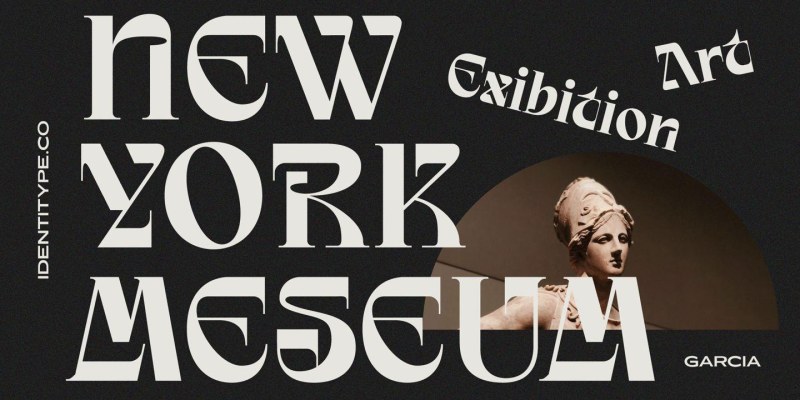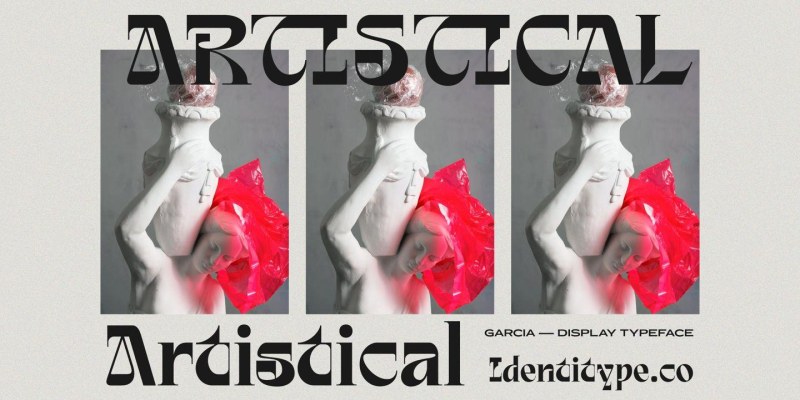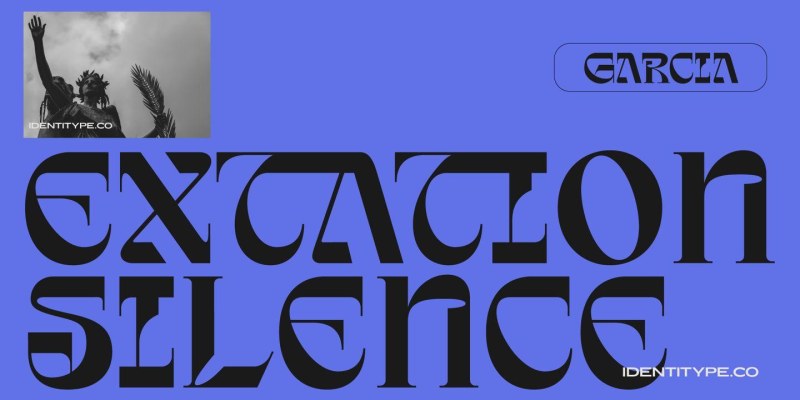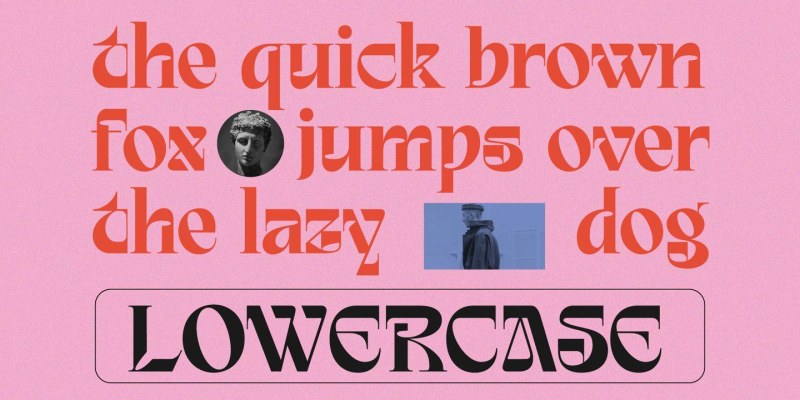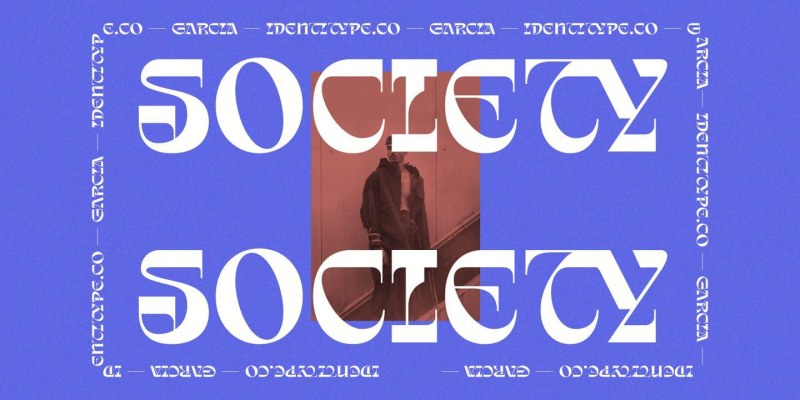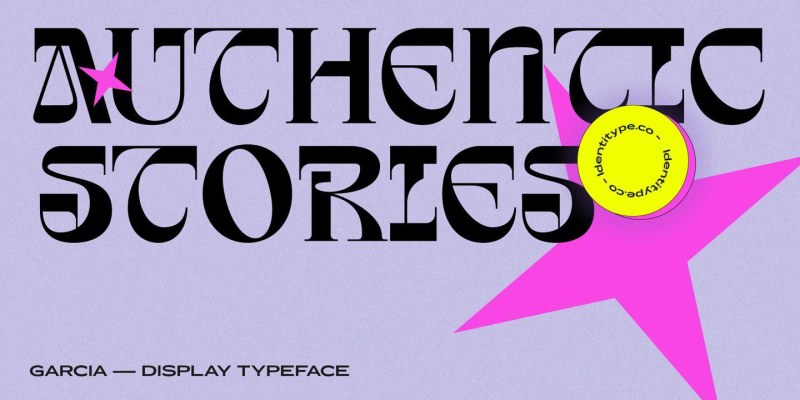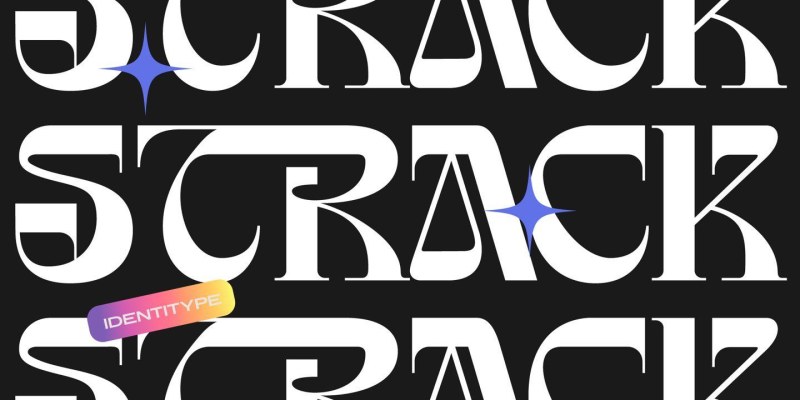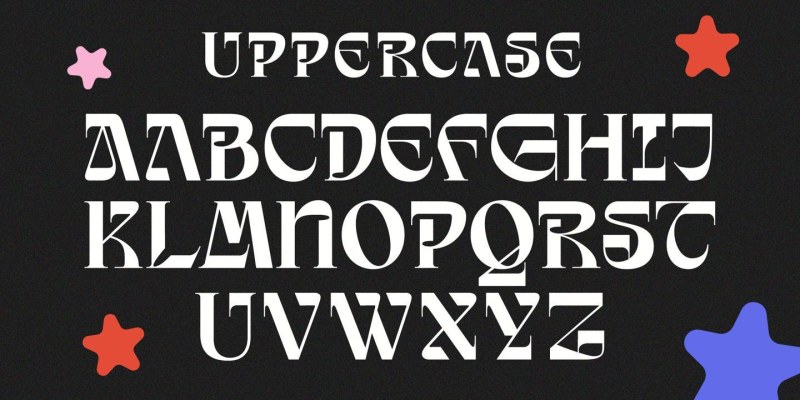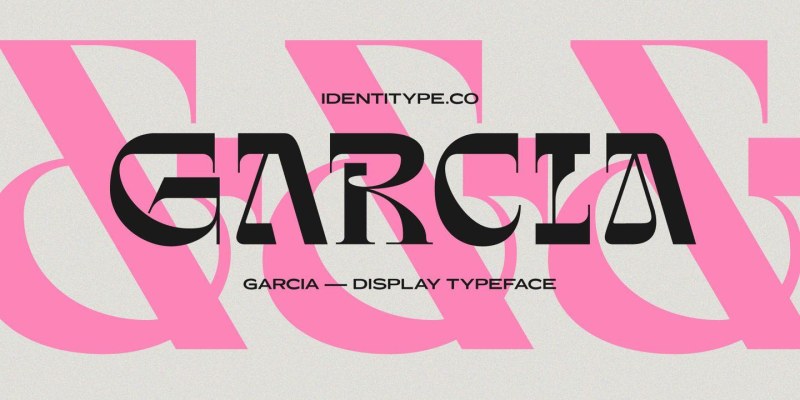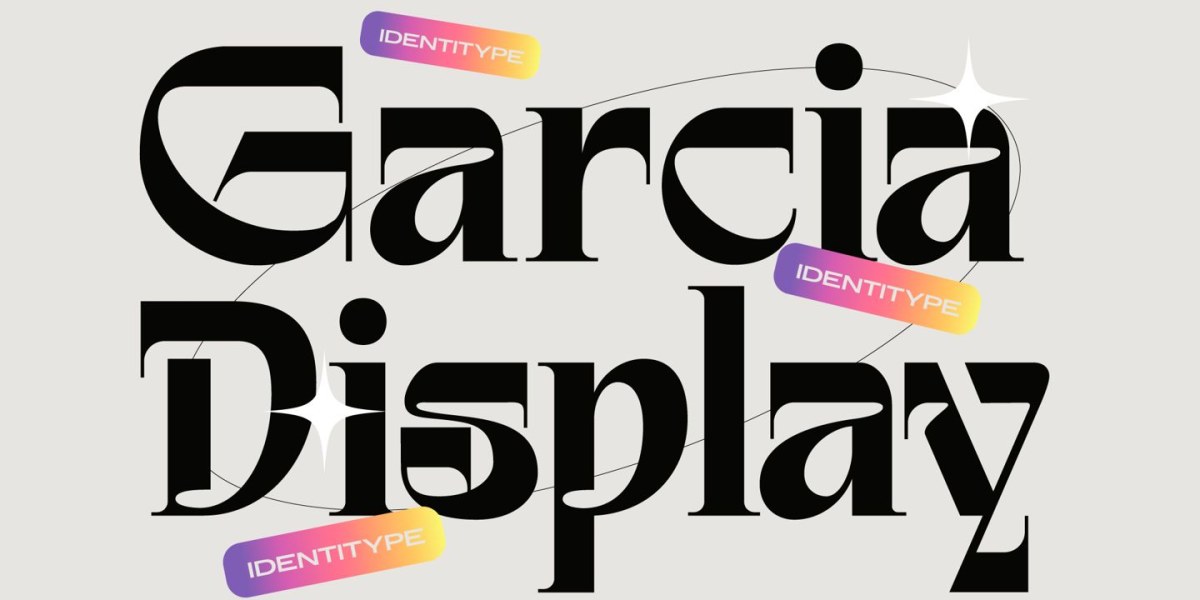
Garcia Font
Garcia is a modern take on a Serif-style typeface. I created a serif style but with added contrast and make a contemporary and memorable font. Sharp points mix with smooth curves creating unique glyphs that are perfect for interesting wordmarks and typographic posters.
Where Garcia Font works best
Startups & tech
Garcia Font fits product landing pages, app stores and pitch decks with a contemporary feel.
Architecture & real estate
Modern geometric forms suit property brochures, signage and portfolio sites.
Corporate identity
A modern typeface keeps annual reports and presentations clean and current.
What is Garcia Font good for?